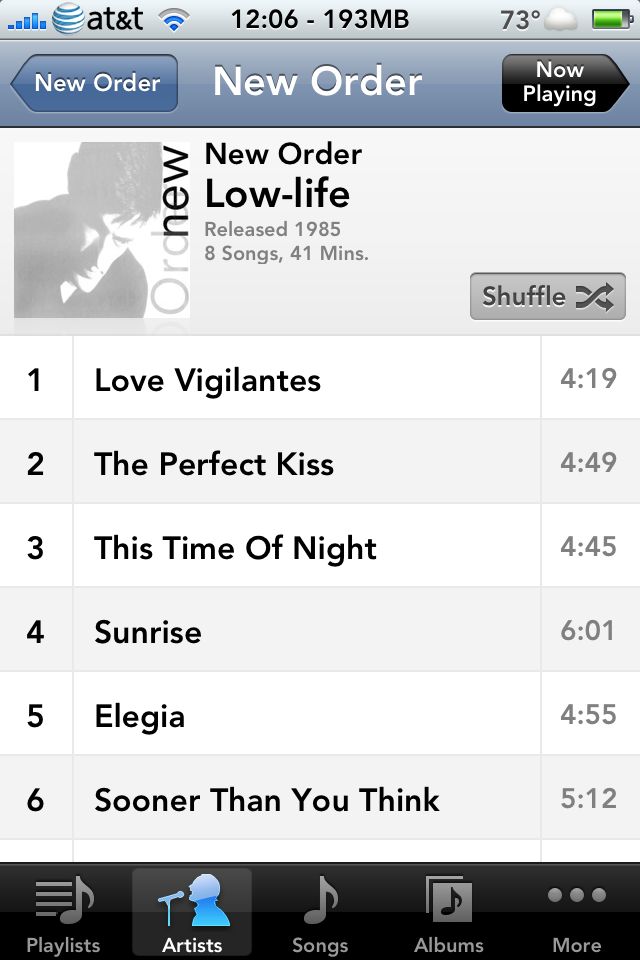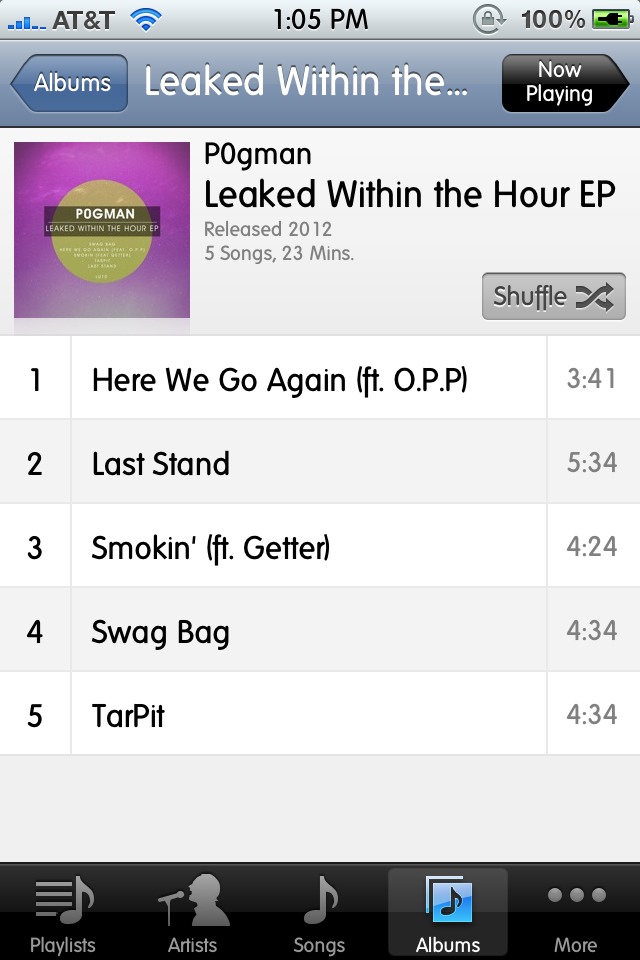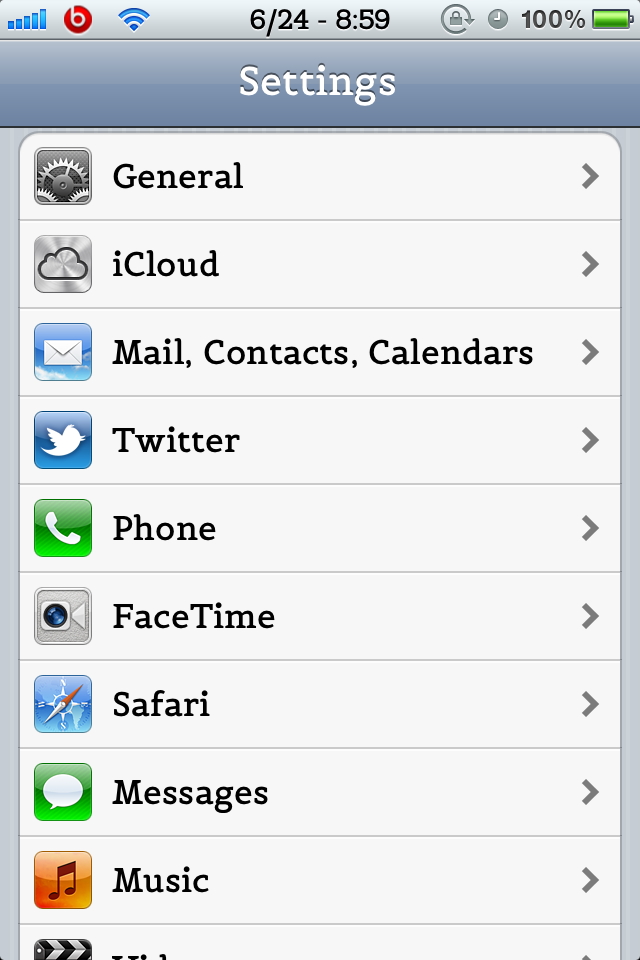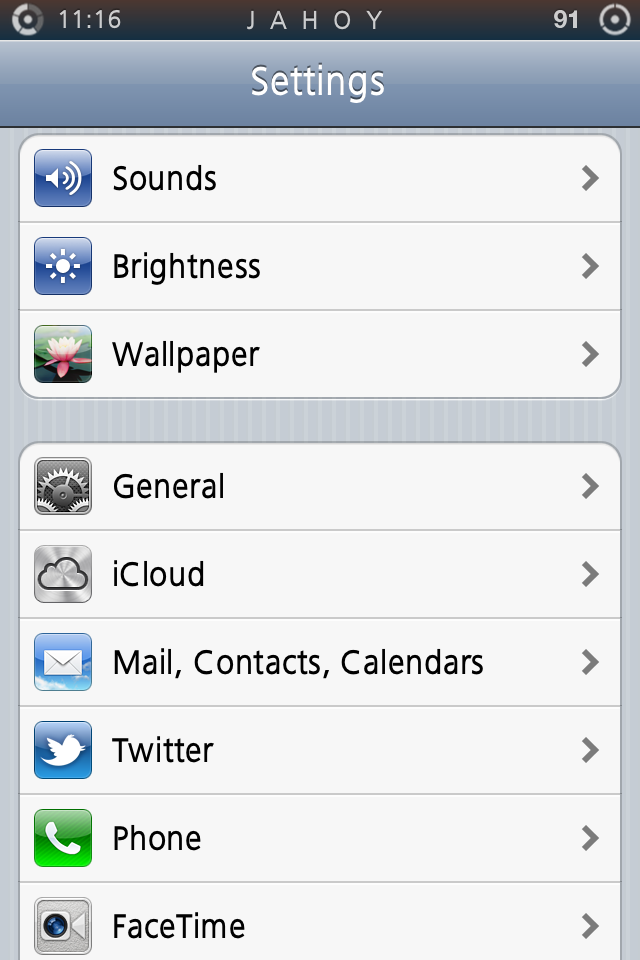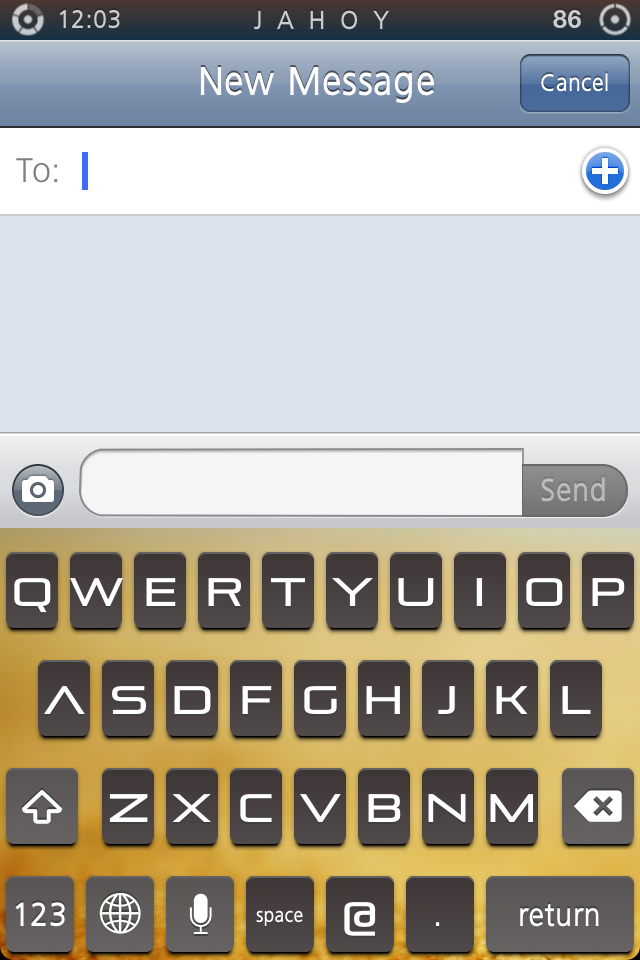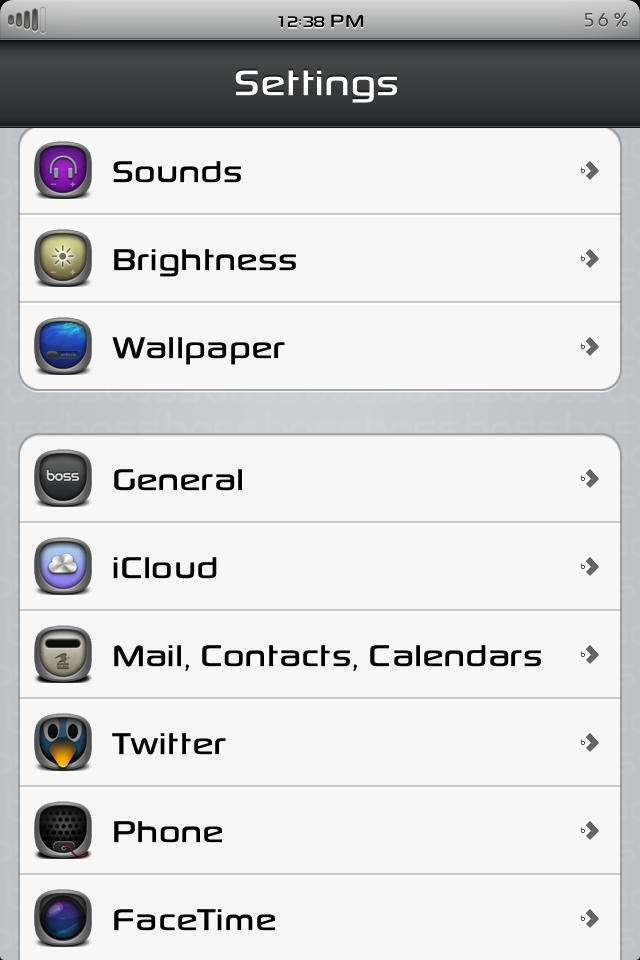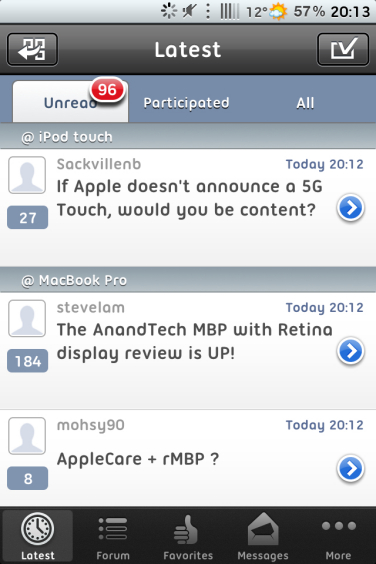
Bytafont users I never found a font I've been happy with. I'm wondering what different fonts people are using perhaps why. Show of your Font's please.
I use "Belgrano." The letters are tall and narrow and it's easy to read.
Bytafont users I never found a font I've been happy with. I'm wondering what different fonts people are using perhaps why. Show of your Font's please.
I use Ubuntu Titling as my main one. I find it real clean and clear. I'm partial to sans serif fonts, and this one is almost near perfect for me.
I co-sign Ubuntu Titling. It's always be default go to font. Lately I've been using TF2 Secidary and I love it. I have a couple others as that I like. I only use fits that are ranked 10/10 or maybe 9/10 on the usability rankings. I don't want goofy font that's difficult to read like Walt Disney and the like. Thanks to labman I will post some pics later when I have a chance. But off the bat these two are incredible.
Does anyone know of an "all caps" font. The "lower" case is just smaller caps. I think Neutraface was like this.
Sucks that Avenir is only available thru 3rd party repo; seems like a nice font.
Does anyone know of an "all caps" font. The "lower" case is just smaller caps. I think Neutraface was like this.
If you find one please post it because I've looked for a clean, easy to read version of what you are looking for. I found one a while back that was all caps with the lower case just mini all cap letters, but it was really slanted and hard to read. I'll do some research and see if I can find anything good.
Does anyone know of an "all caps" font. The "lower" case is just smaller caps. I think Neutraface was like this.
Anyhow I'm using a font called Sony Sketch EF Regular. I like it because it's cool/futuristic looking and not an eye-sore like many other unique fonts.
ok that's fine I accept the brain fart comment and aplogize for my one tjread compared to all the can i jailbreak or unlock my iphone or the error 1600 threads. Also I think I bricked my phone s. Yes Hick Head I'm not perfect. So far I like folks is the best font I tried most of them.